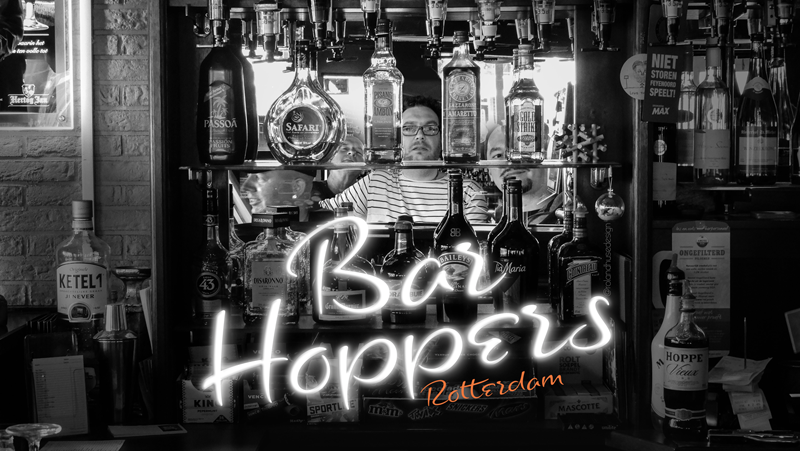
Preview and download Bar Hoppers Font. Created by Runes & Fonts in Script Various styles with Demo license.
BAR HOPPERS (demo) This is the demo version of the handwriting font called “Bar Hoppers”* named after a friday night in my favorite bar in Rotterdam meeting with the guys who actually do barhopping every friday. Free for personal use only. For commercial use and/or full version please visit: store.rolandhuse.com or email me: contact@rolandhuse.com You MAY NOT sell my fonts or claim them as your own. You MAY NOT edit or rename my fonts. You MAY redistribute my fonts if: 1. You credit me (Roland Huse). 2. Keep the READ ME file intact within the zip folder. 3. Provide a link back to my website (www.rolandhuse.com). *I have made the pictures in the bar and edited these guys in the reflection of the drinks shelf, I am on the right side behind the “Gold Strike” bottle. Thank you & I hope you like this font, Roland Follow my work on instagram @rolandhusedesign Poster artwork background image by @reginar from unsplash https://unsplash.com/@reginar |